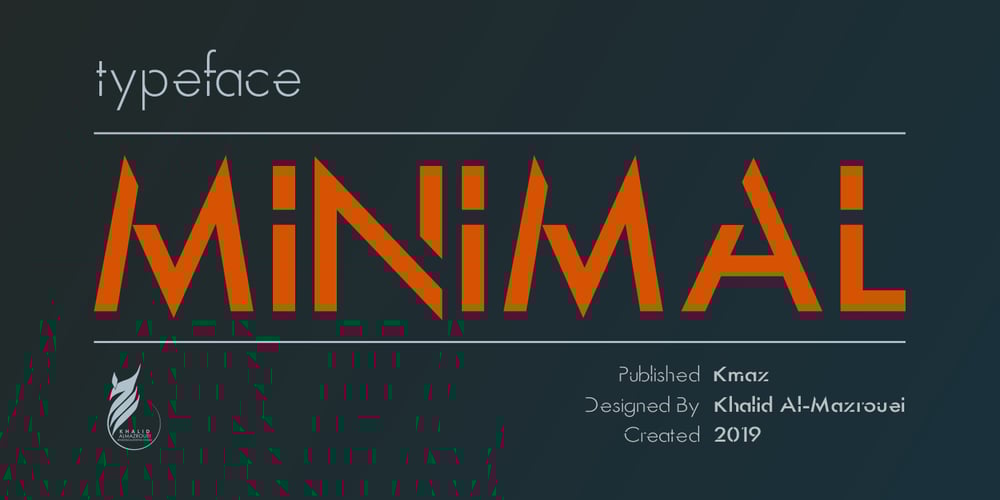
Minimal Font Family was designed by Khalid Al-Mazrouei and published by Kmaz. Minimal contains 3 styles and family package options. Minimal is a distinguished sans serif display family with minimalistic modern edges, designed by Khalid Al-Mazrouei and published by Kmaz. Minimal packs a complete set of uppercase and lowercase letters, numbers and punctuation and comes in 3 weights (Thin, Regular, and Bold). Perfect for headlines, magazines, and much more.